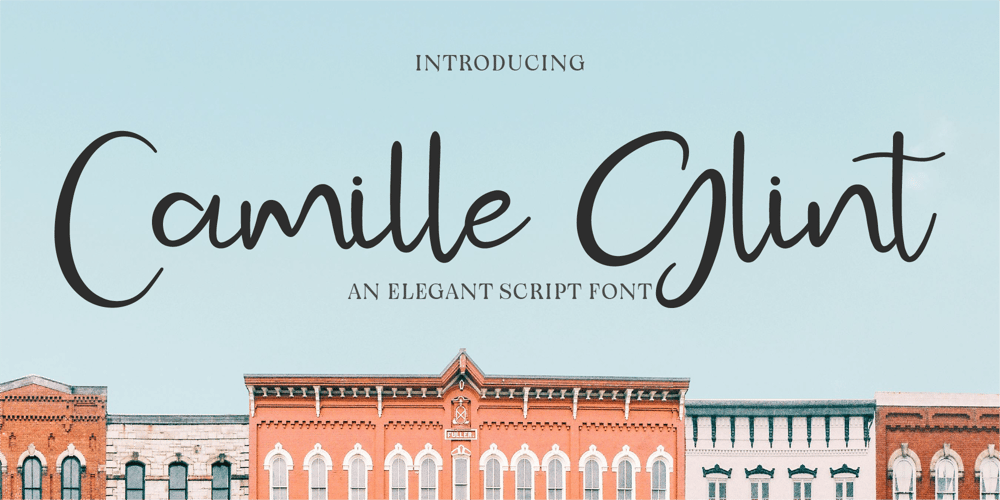
CF Camille Glint Font Family was designed by Gilang Mei Nugraha, Frederik Aristaputra and published by Creatifont Studio. CF Camille Glint contains 2 styles and family package options. Camille Glint is a sophisticated and stylish script font designed to add a touch of refinement to your creations. Featuring clean curves and a contemporary aesthetic, it seamlessly blends modernity with a hint of playfulness. Camille Glint is ideal for fashion branding, editorial designs, stylish logos, personal stationery, and social media graphics. Its distinctive strokes and elegant flow make it a standout choice for projects that demand both beauty and professionalism.A SUMMARY OF WHAT’S INCLUDED:- Standard Character A-Z, a-z, 0-9, Punctuation & symbols- Regular and Italic- Works on PC & Mac- Simple installation- Accessible in Adobe Creative Suite (Ai, Ps, Id, etc.) even work on Microsoft Word.- PUA Encoded Characters – Fully accessible without additional design software.🌟If you come across any issues or notice anything we might have overlooked while using this product, please feel free to reach out to us. We greatly value your feedback as it helps us enhance and refine our products. Thank you!